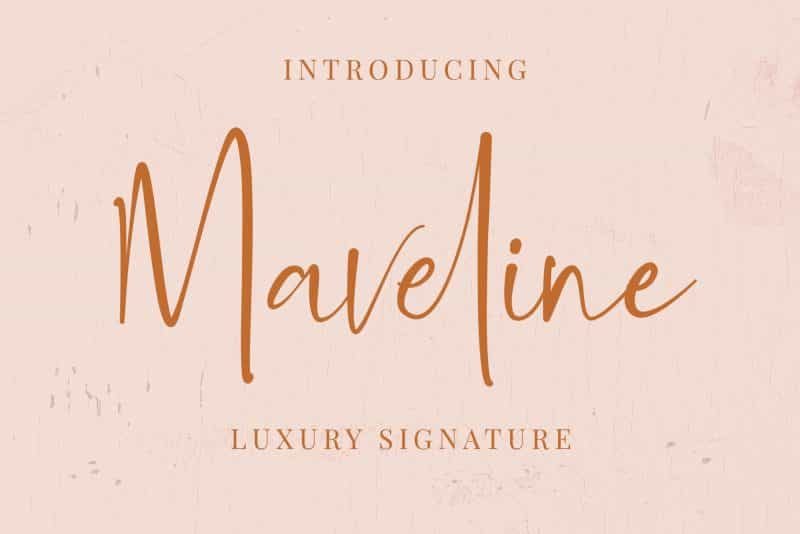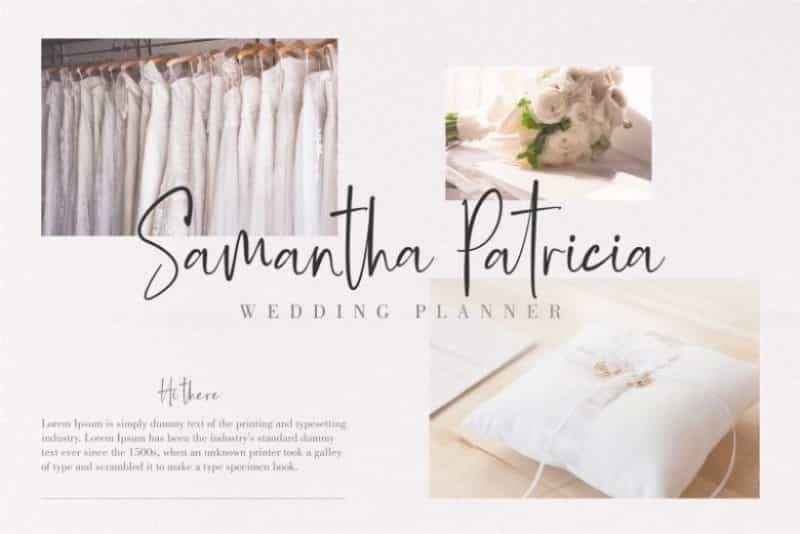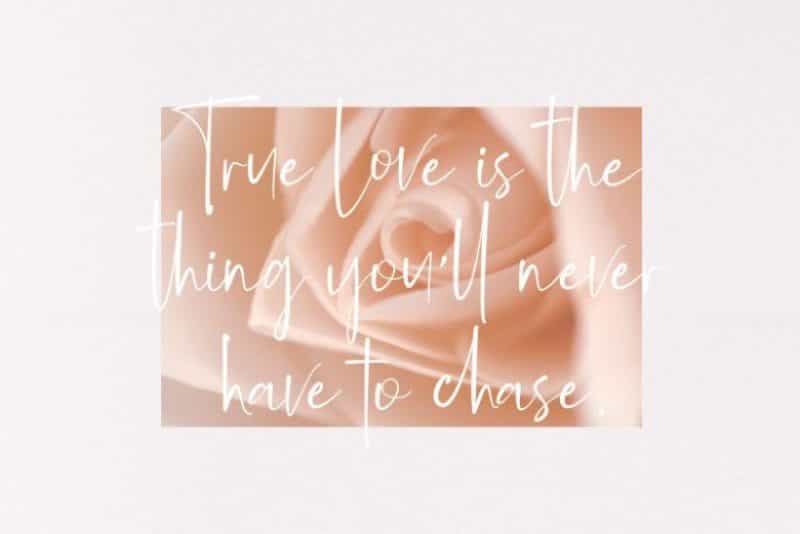
Discover Maveline Luxury Signature Font, part of the Brush Handwritten collection—a versatile and unique font perfect for adding a personal touch to your projects. Download it for free and enjoy crafting designs with style, from invitations to social media posts. This font is available exclusively for personal use, giving you the freedom to create without limits. Unlock your creativity with Maveline Luxury Signature Font today!
Maveline Luxury Signature Font is a handmade, calligraphy, and casual font that fits for logos, posters, advertisements, and signs. It also has great ligatures for a genuinely handwritten type of style!